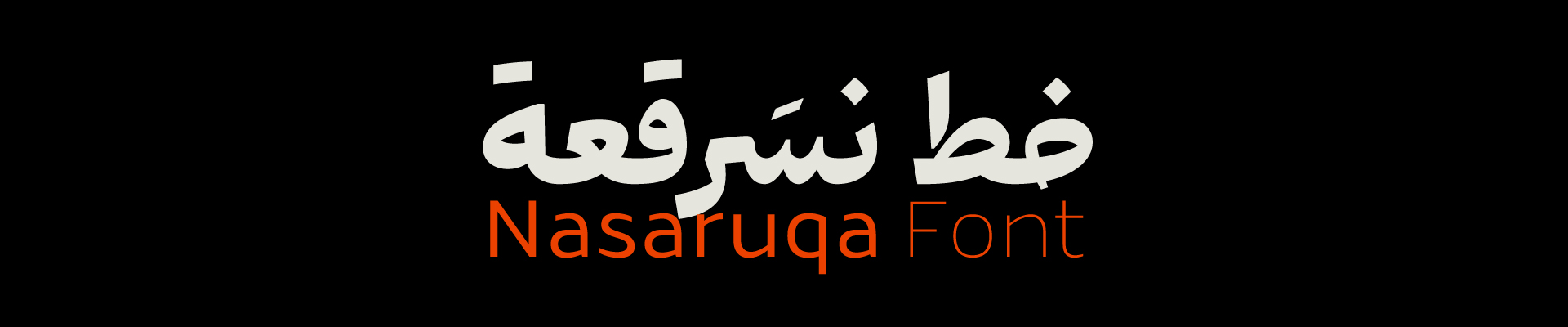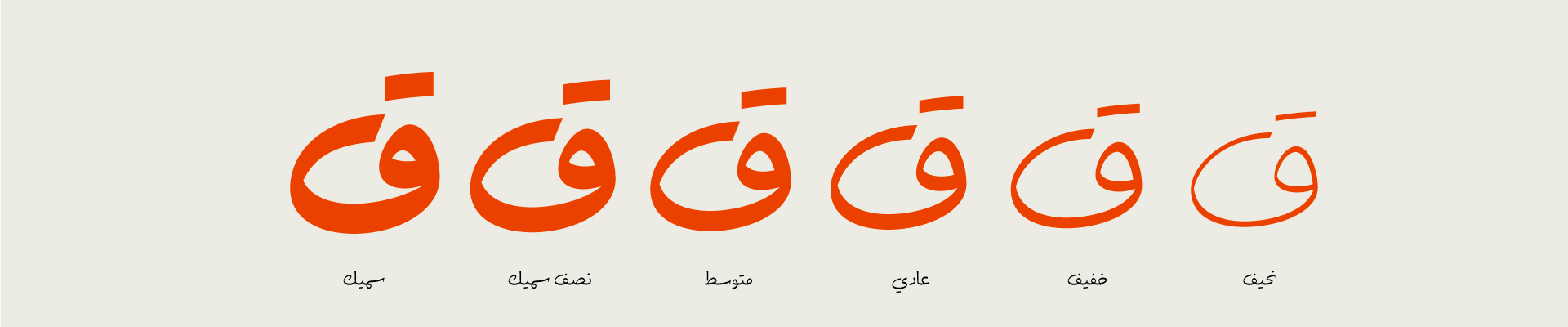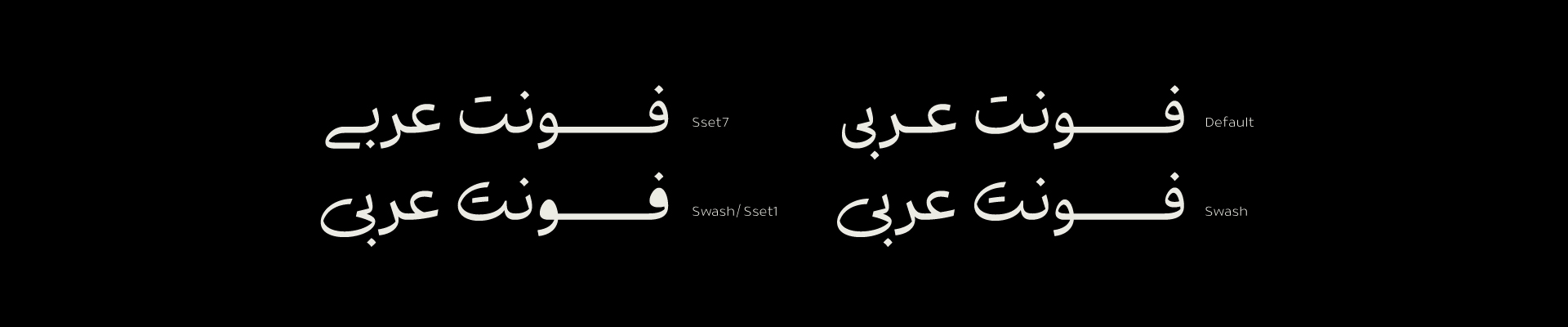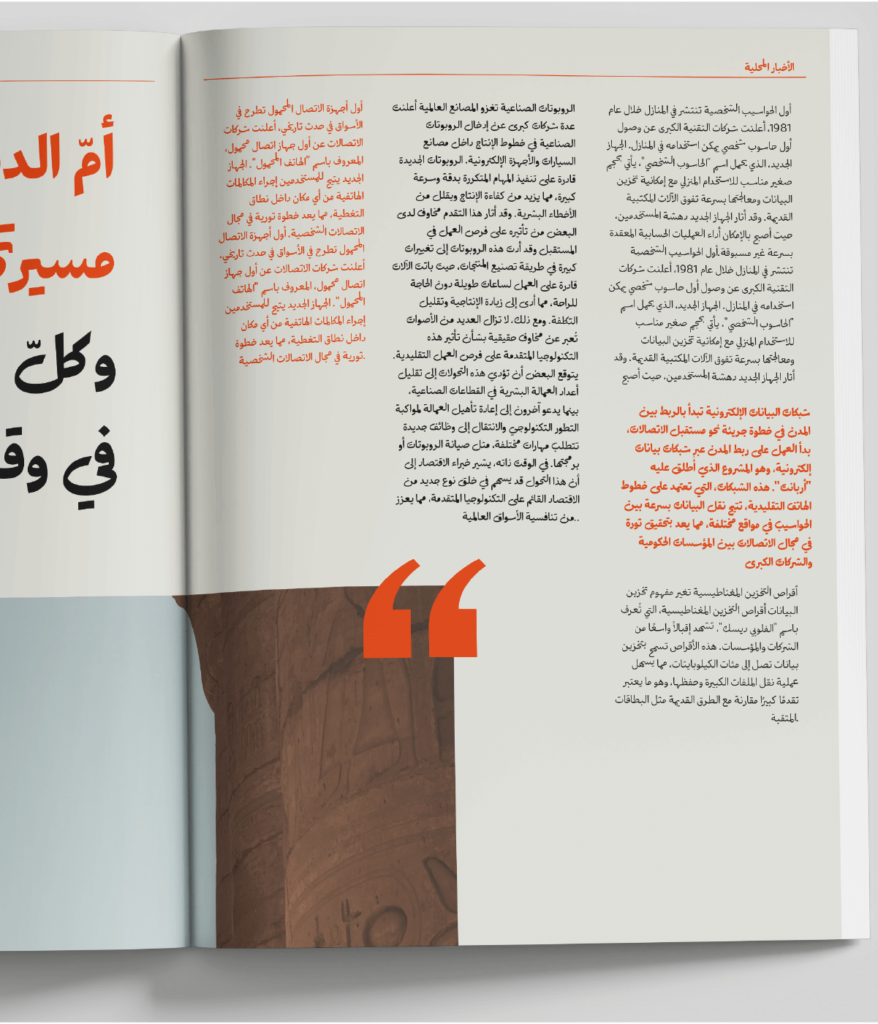
About NasaRuqa Font
Introduction:
The story began four years ago when I started learning the Ruq’ah script and instantly fell in love. From there, the desire grew to create a typeface combining traditional Arabic calligraphy aesthetics with modern type design technology.
This is how the Nasaruqa font (a blend of Naskh and Ruq’ah) was born, a seamless fusion of the strength of Naskh script with the simplicity of Ruq’ah, offering a comfortable and appealing reading experience.
Nasaruqa consists of six weights and supports Arabic, Persian, Urdu, Kurdish, and Latin. Its unique feature is its smooth transition between Naskh and Ruq’ah styles, achieved through our careful selection of similarities between the two scripts and by adding features that allow users to switch between the styles easily.
Additionally, Nasaruqa provides the option to modify dots and offers a variety of stylistic sets. The font maintains a perfect balance and high craftsmanship, making it suitable for both long and short texts. It also supports multiple languages, making it an ideal choice for writing articles and designing advertisements, adding a touch of authenticity and beauty to every letter.
With Nasaruqa, you gain a powerful tool that enhances the beauty and craftsmanship of your text designs, whether they require a traditional or modern look.